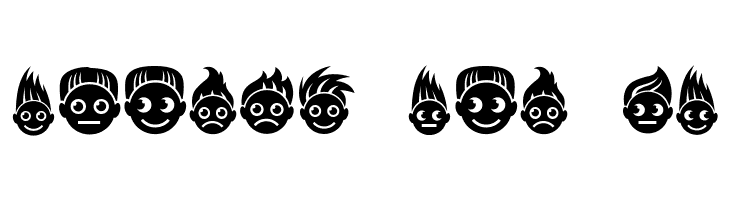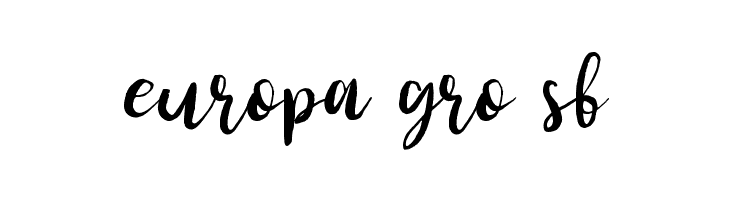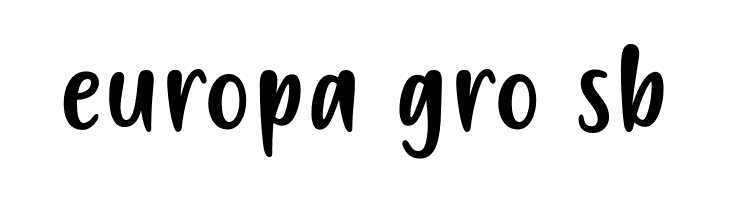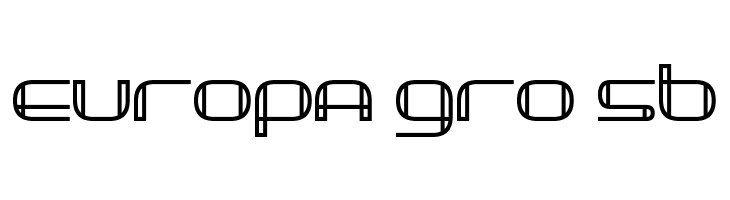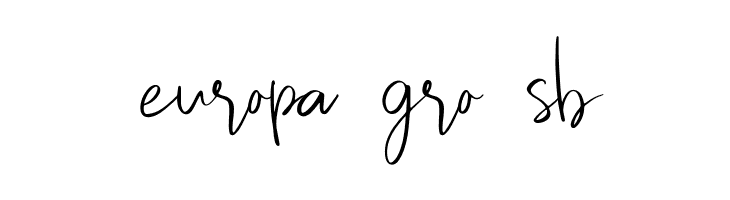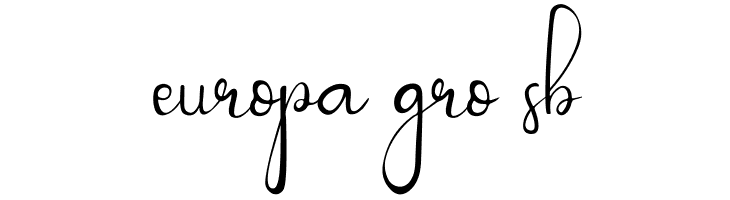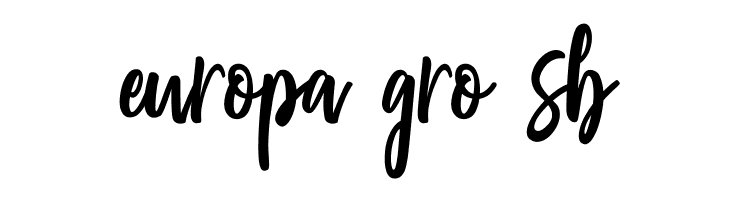
A bold, geometric font with a shadow effect, ideal for impactful headlines.
A bold, 3D decorative font with a gradient effect and strong visual impact.
A bold, three-dimensional font with a shadow effect and geometric style.
A bold, lively script font with a handwritten, dynamic style.
A bold, dynamic script font with flowing, interconnected strokes.
A lively, handwritten script font with a playful and dynamic style.
A bold, playful font with a hand-drawn, energetic style.
A bold, slanted handwritten font with a dynamic and friendly style.
A vibrant, brush-style font with a dynamic and artistic flair.
A playful handwritten font with flowing, interconnected strokes and varied line thickness.
A playful, whimsical handwritten font with flowing, interconnected letterforms.
A playful, bold font with a patchwork, robotic style featuring circular cutouts.
A bold, condensed font with a stamped, vintage texture.
A lively, handwritten-style font with dynamic, fluid strokes.
A lively and elegant script font with flowing, cursive letterforms.
A modern, elegant script font with flowing, cursive strokes and dramatic flourishes.
A rough, textured serif font with a vintage, distressed appearance.
An elegant, flowing script font with graceful curves and dynamic slant.
A modern, geometric font with a futuristic and tech-inspired design.
An ornate and decorative typeface with intricate swirls and embellishments.
A playful font with characters inside cartoon penguin silhouettes.
A playful font with characters inside penguin silhouettes, ideal for fun designs.
A bold, modern italic font with dynamic and energetic strokes.
A bold, italic font with a dynamic and modern style.
A modern, italic sans-serif font with clean lines and excellent readability.
A modern, light sans-serif font with excellent readability and uniform design.
A modern, light, italic sans-serif font with smooth strokes and normal spacing.
A modern, sans-serif font with clean lines and excellent readability.
Cartoonish dingbat font of expressive human faces.
Cartoon face dingbat font with bold, playful style.
A bold, expressive handwritten font with fluid, brush-like strokes.